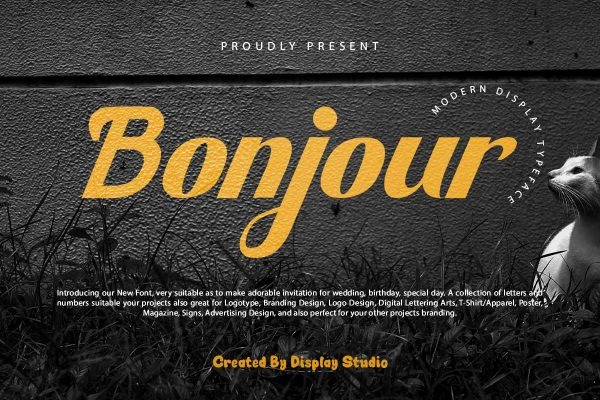
Bonjour Display Font
This is a bold display font created by Display Studio with simple, clean, and visual elegance. Specially designed for elegant-themed projects, perfectly suitable for creating simple, clean, lifestyle design such as logos, title, and magazine and more.